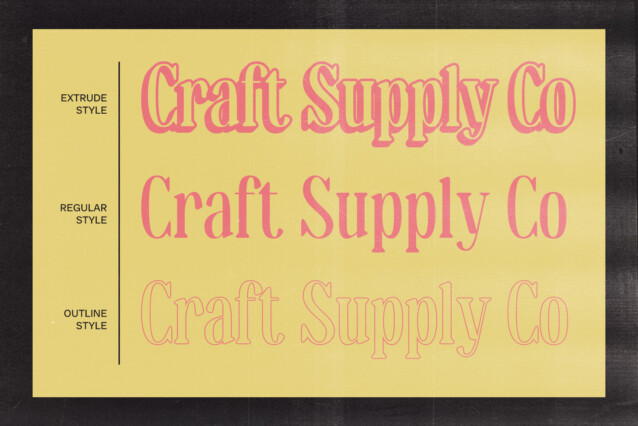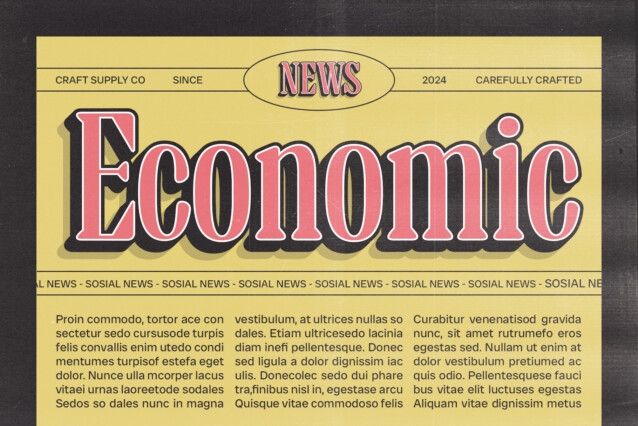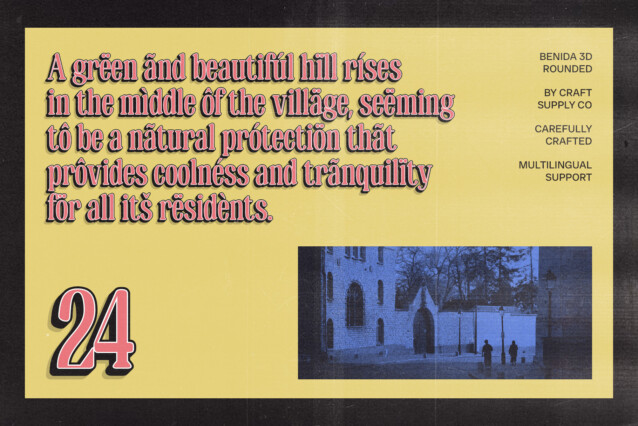
Benida Rounded 3D Font
Benida Rounded 3D Font is a condensed serif font that marries elegance with visual uniqueness. Featuring slim proportions and gracefully rounded edges, it delivers a modern yet sophisticated look. The rounded shapes offer a smooth, refined appearance that stands out in various design contexts.